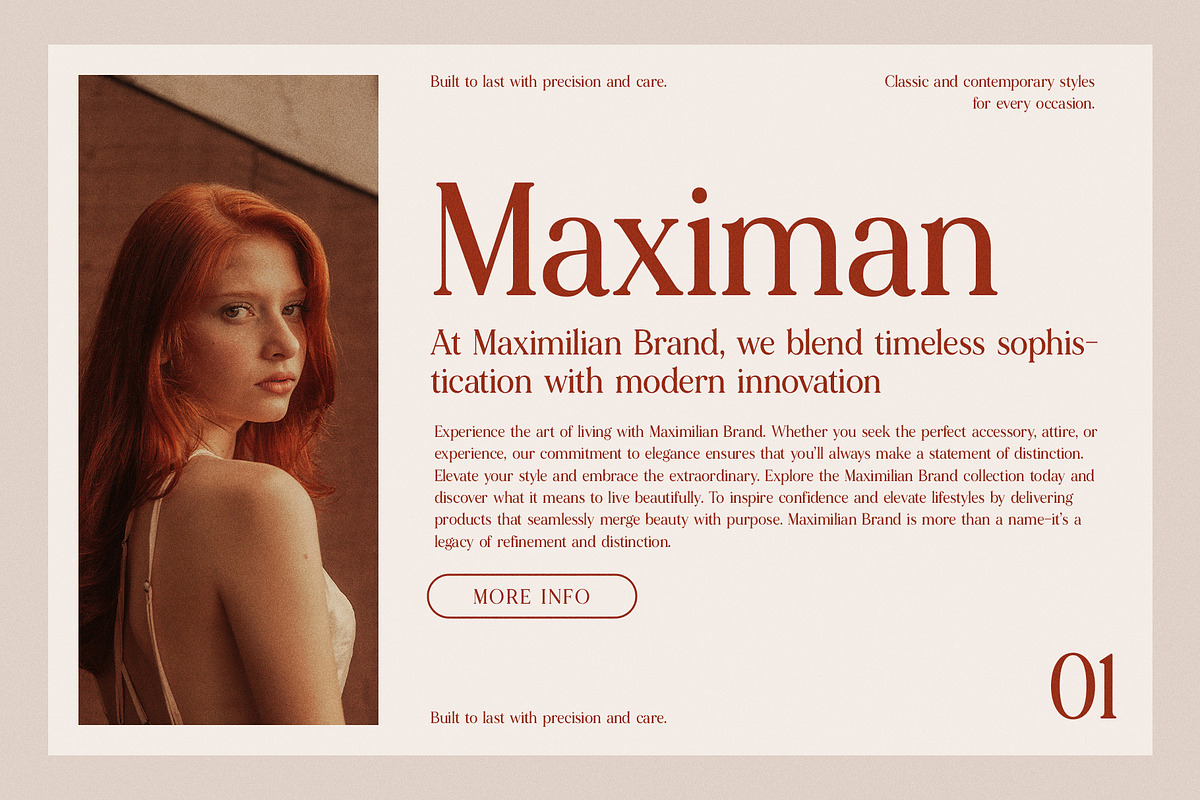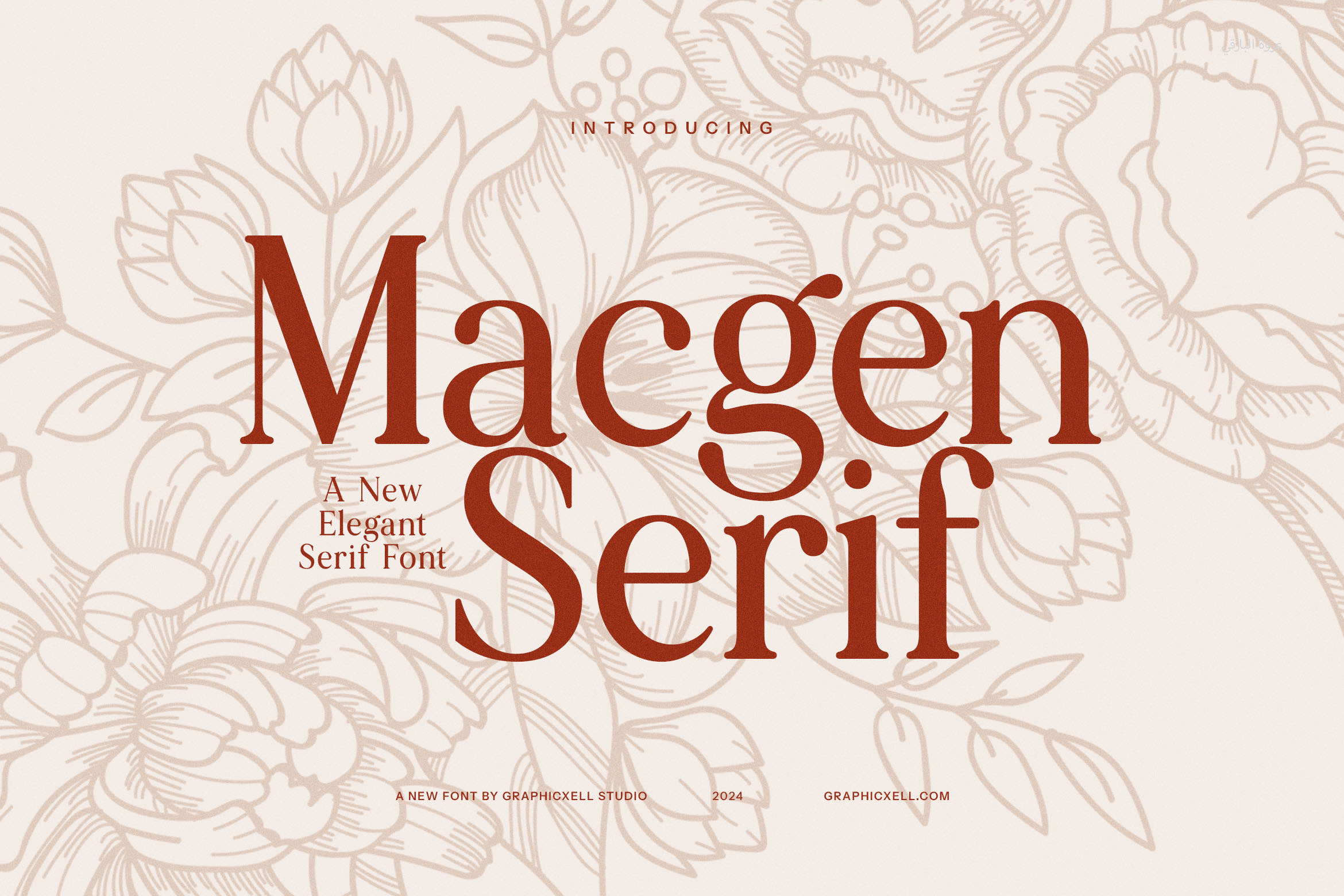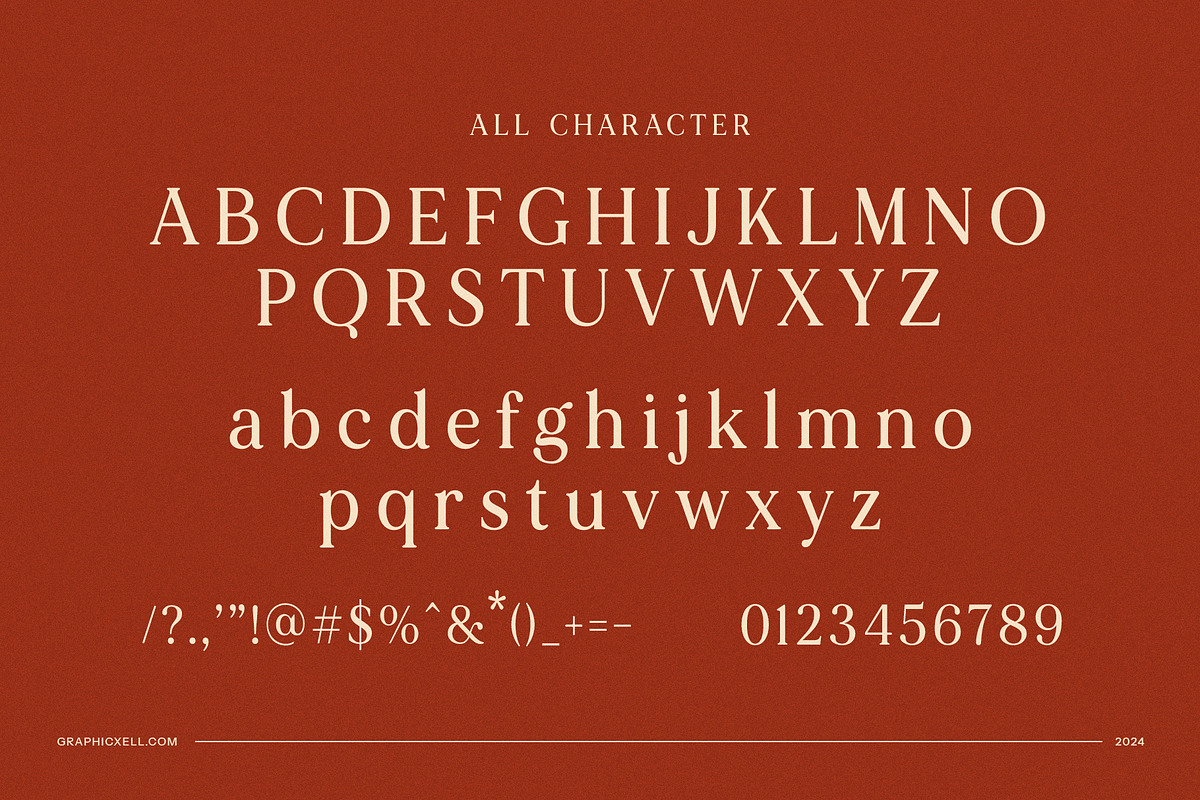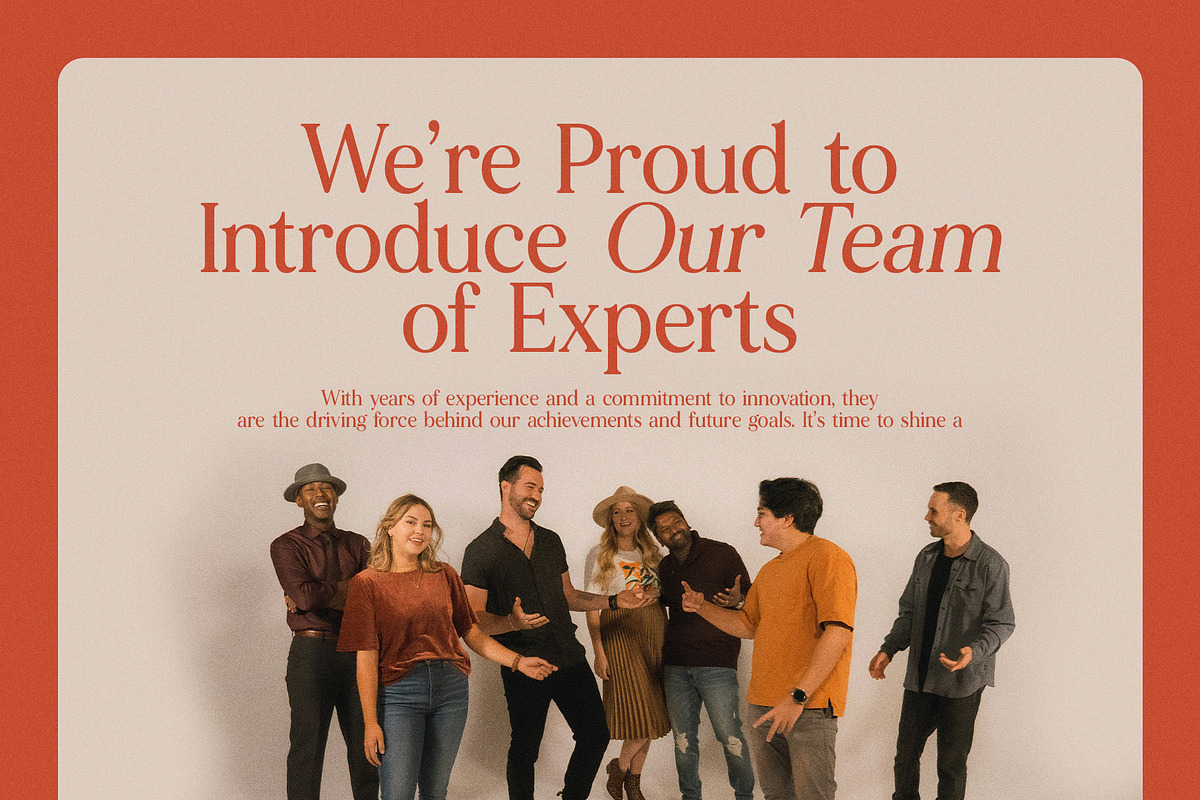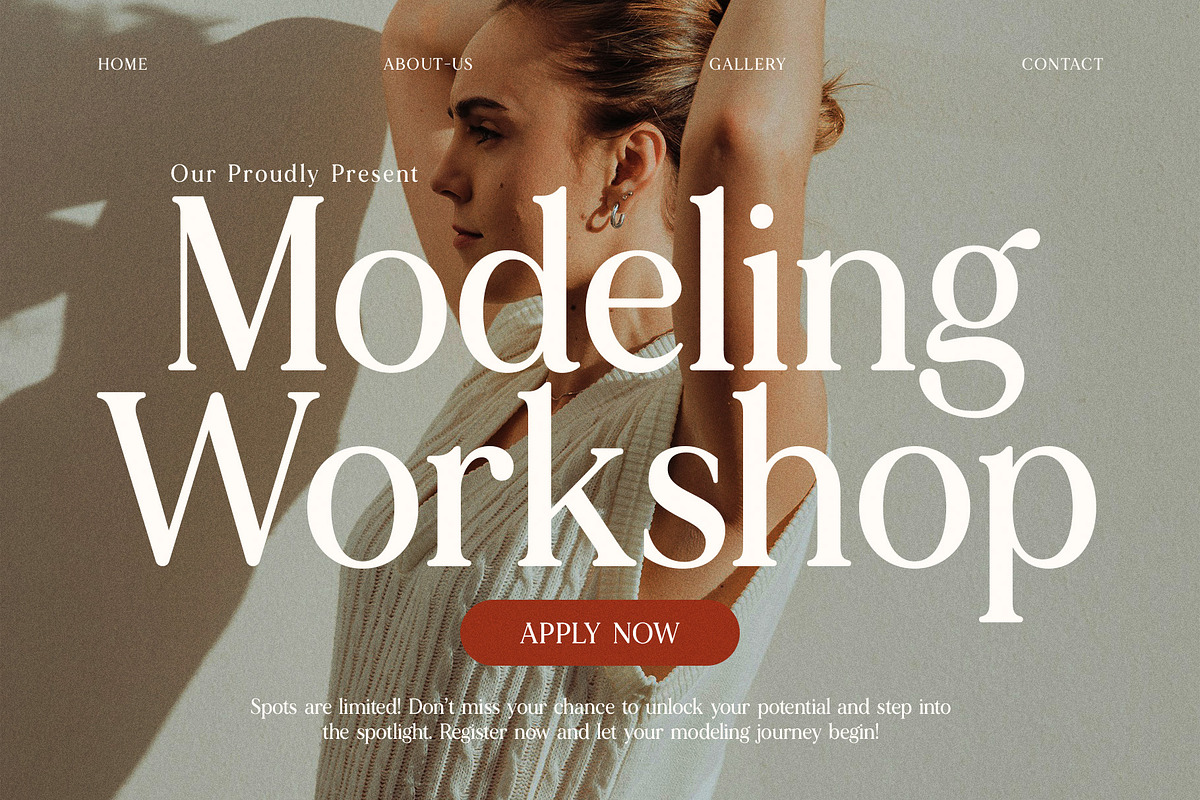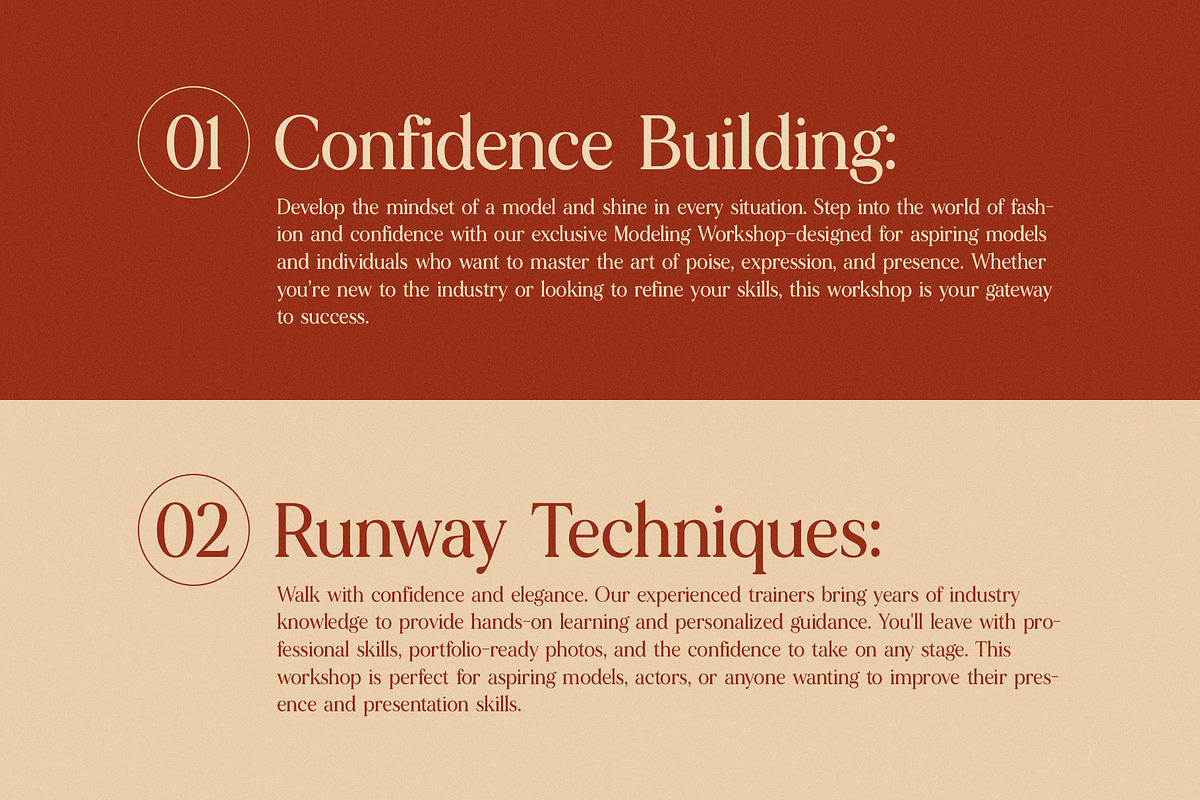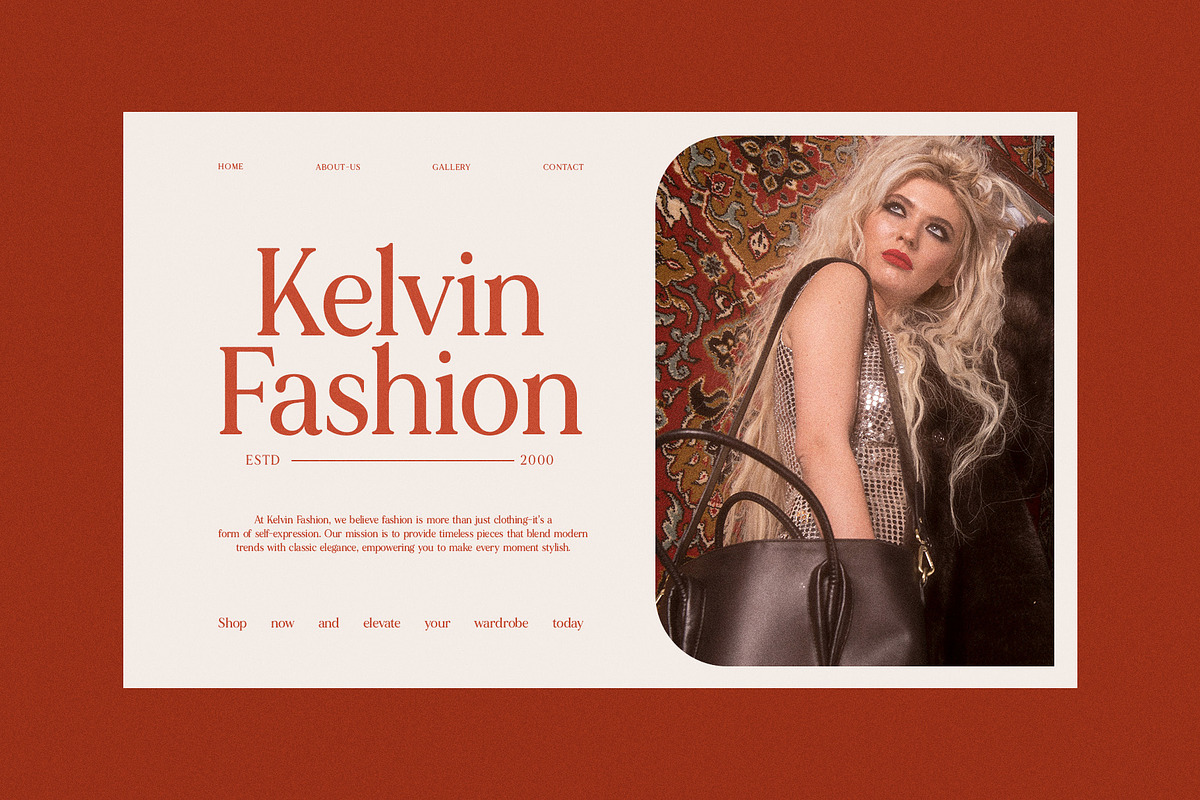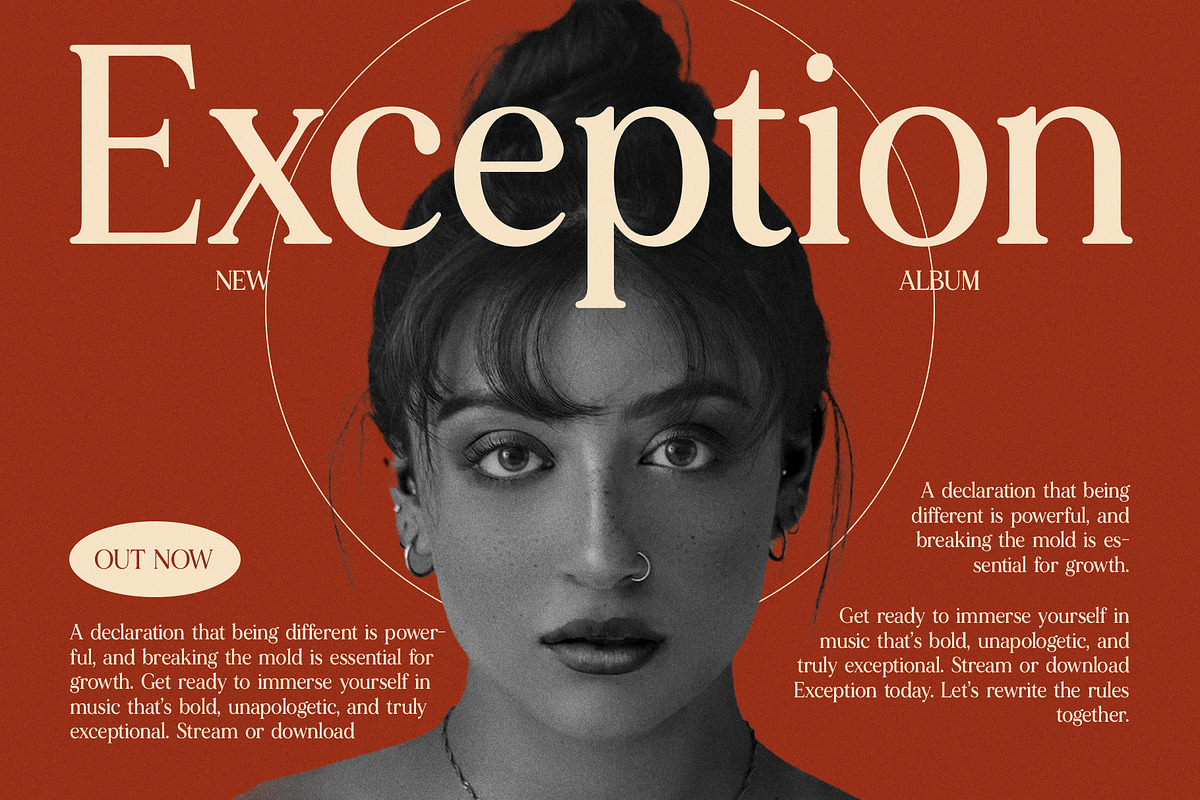
Macgen - Elegant Serif Font
Macgen Elegant Serif Font is a sophisticated typeface that effortlessly combines modern elegance with a touch of vintage charm. Its distinctive and refined serifs create a luxurious feel, while the clean lines and graceful proportions bring a sense of modernity. This font stands out with its unique balance of timeless beauty and contemporary flair, making it perfect for high-end designs and creative projects.
Whether you’re designing a logo, building a brand identity, or crafting an elegant website, Macgen adds a sense of prestige and class to any design. It’s particularly suited for projects in industries such as fashion, luxury goods, hospitality, food, and lifestyle, where a refined, premium aesthetic is essential. The font’s versatility makes it an excellent choice for magazines, brochures, and product packaging, delivering both style and readability.
Macgen Elegant Serif Font excels in delivering a polished, professional look without sacrificing personality. It’s an ideal pick for any designer looking to evoke a sense of sophistication while maintaining visual clarity. From boutique branding to stylish advertisements, this font’s refined character ensures that your message resonates with elegance.
Perfect for both print and digital mediums, Macgen offers endless possibilities. Its unique character set and timeless design ensure it will stand the test of time, elevating your creative projects and giving them a distinctive, upscale appeal.